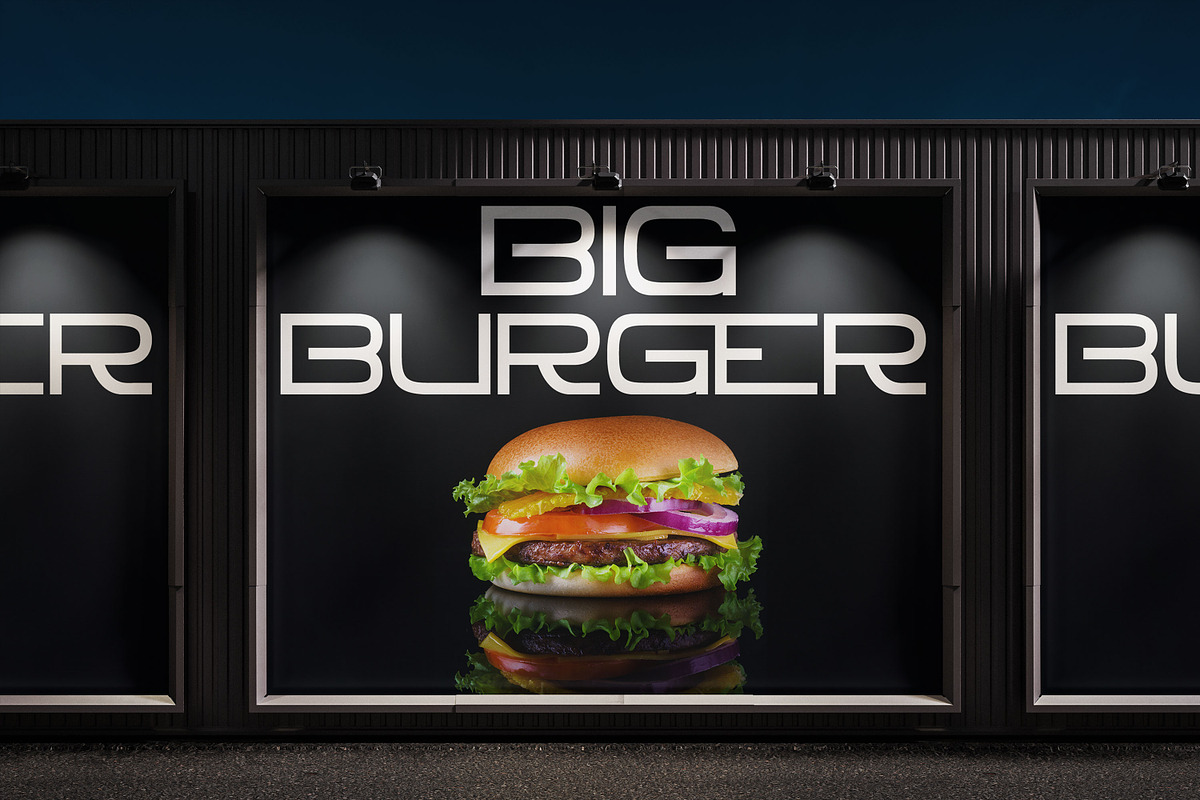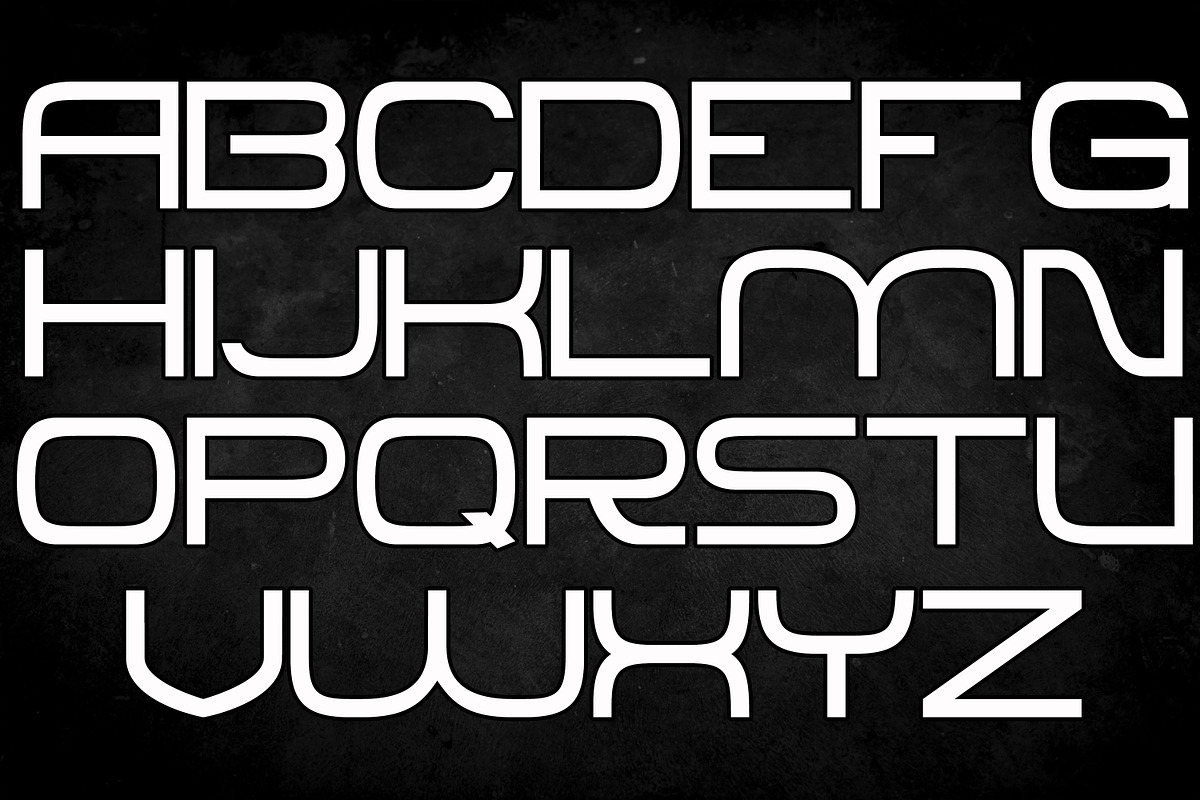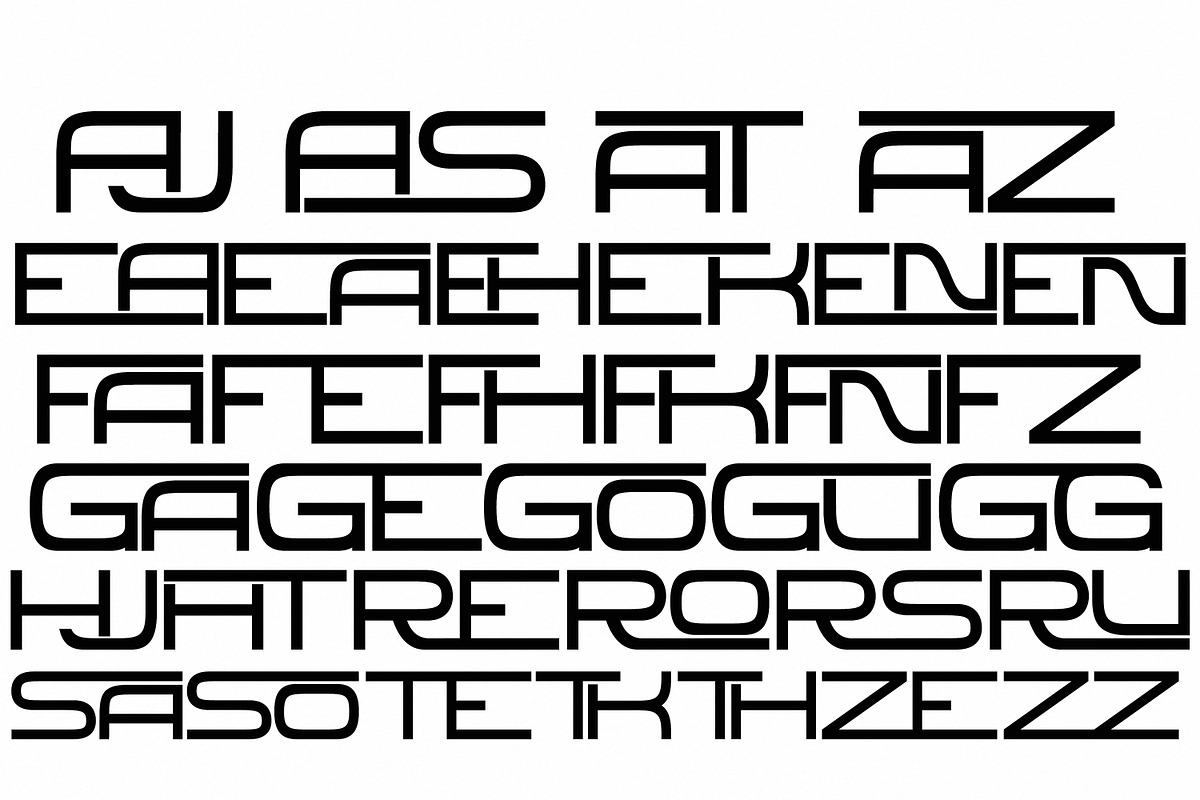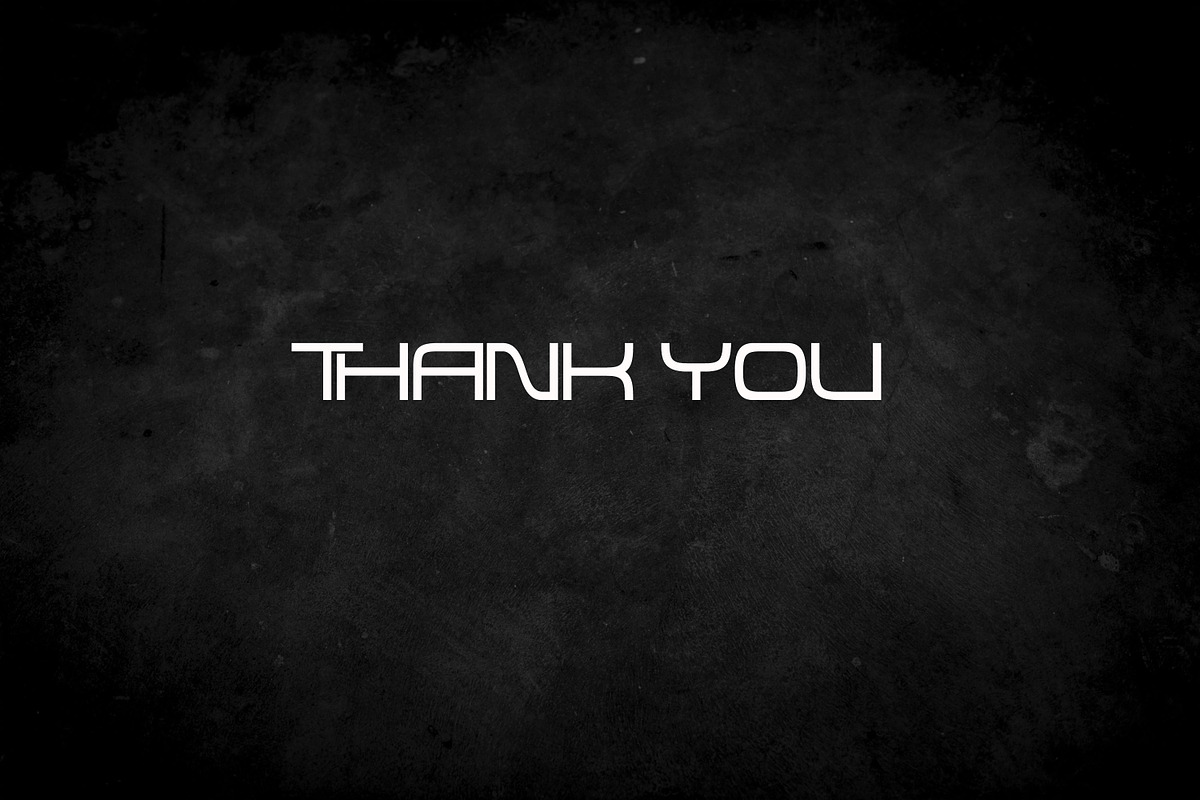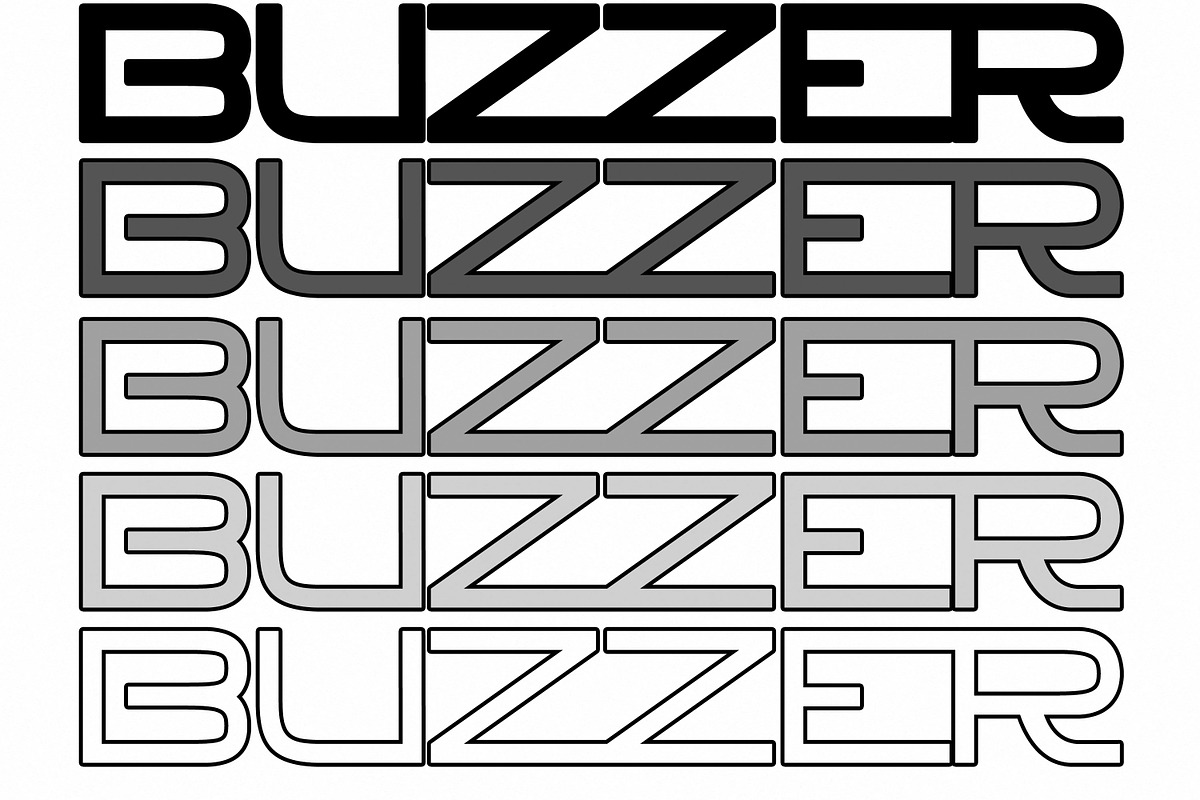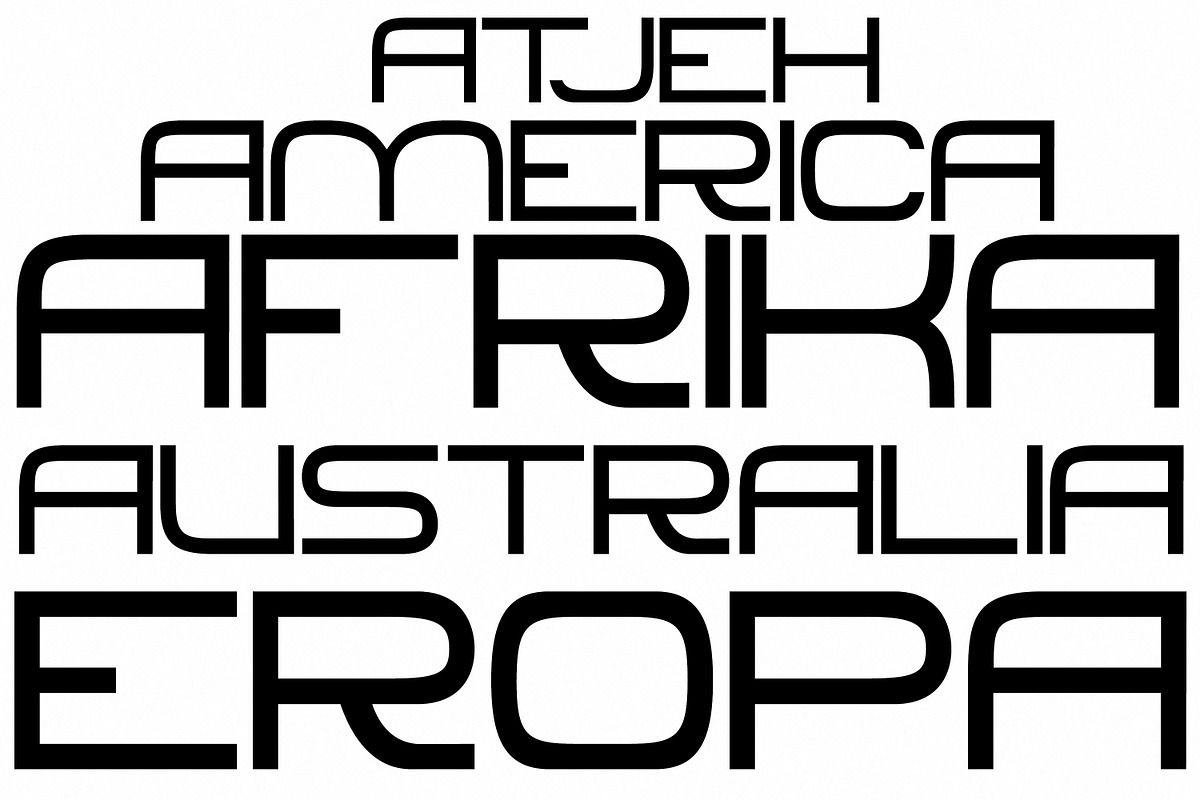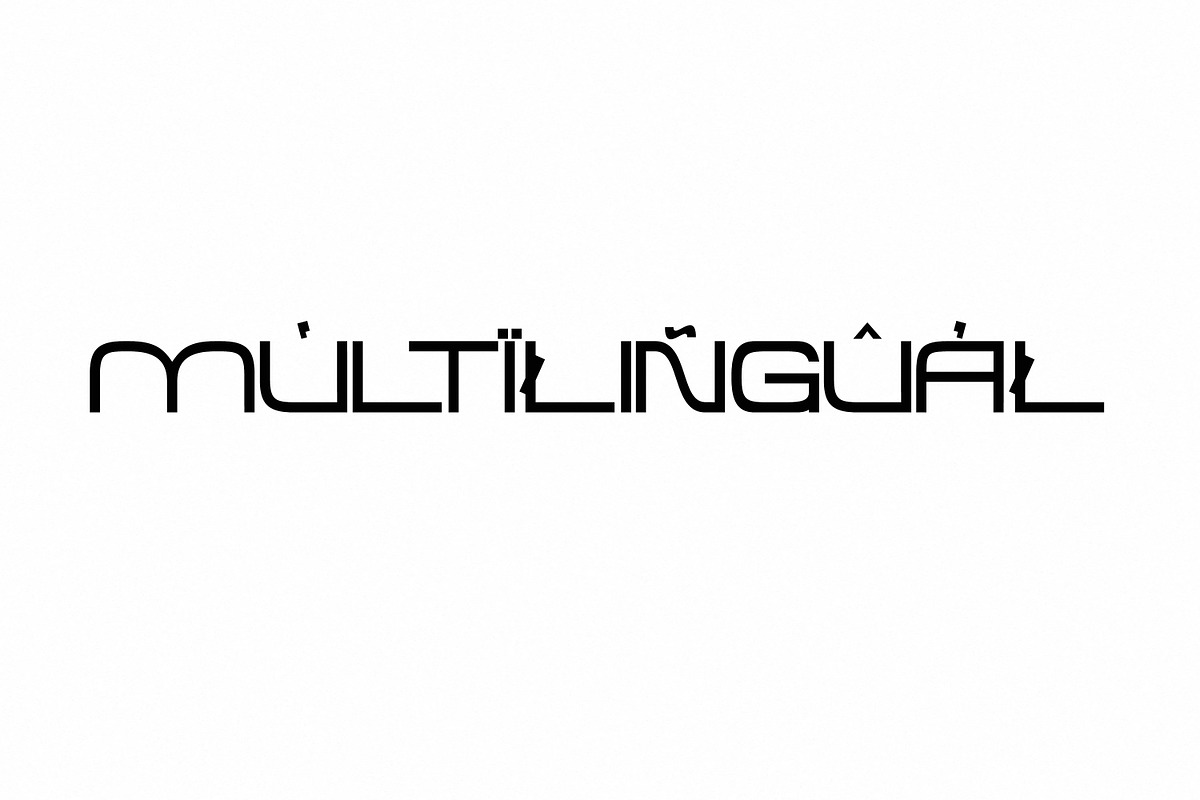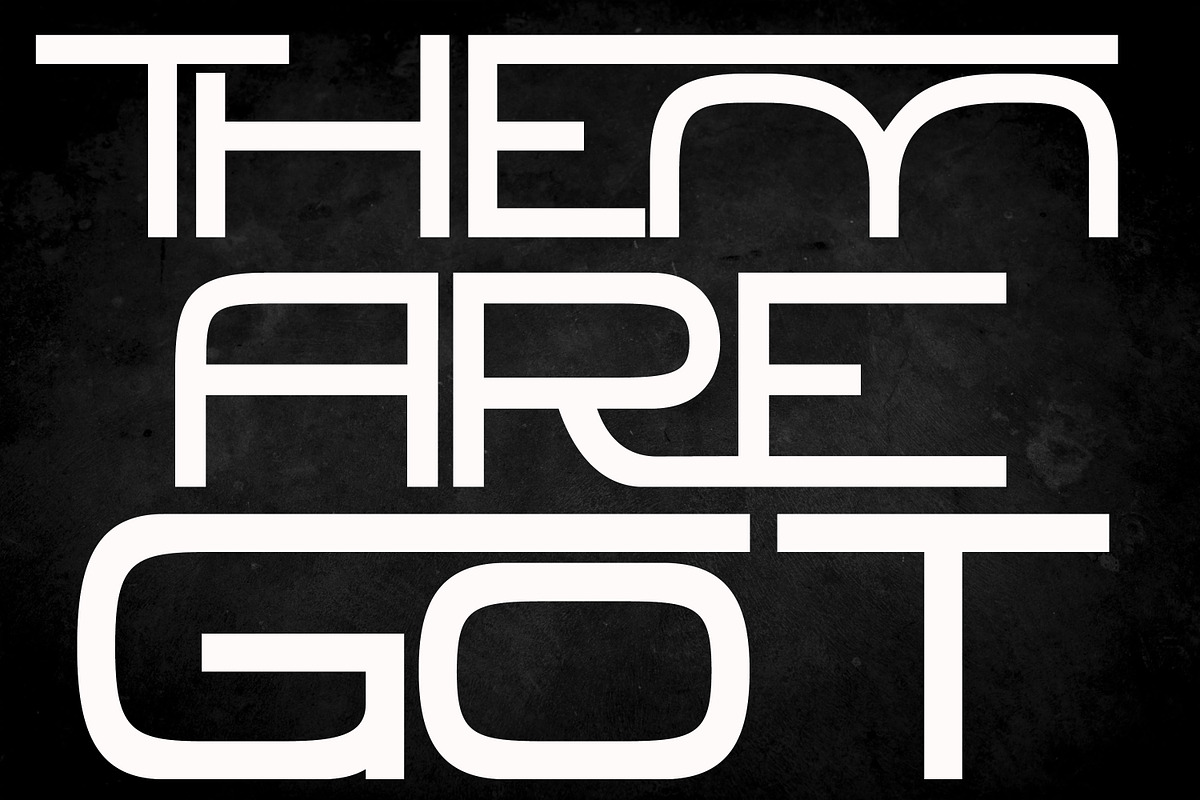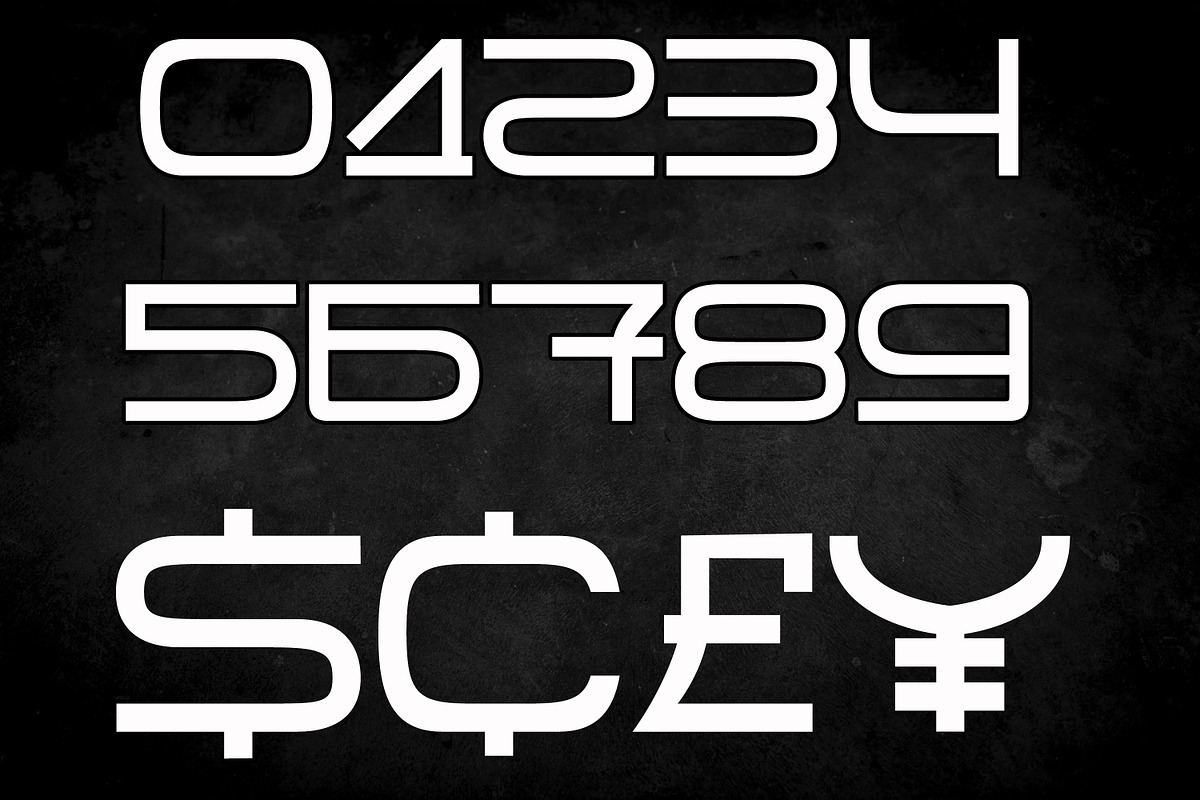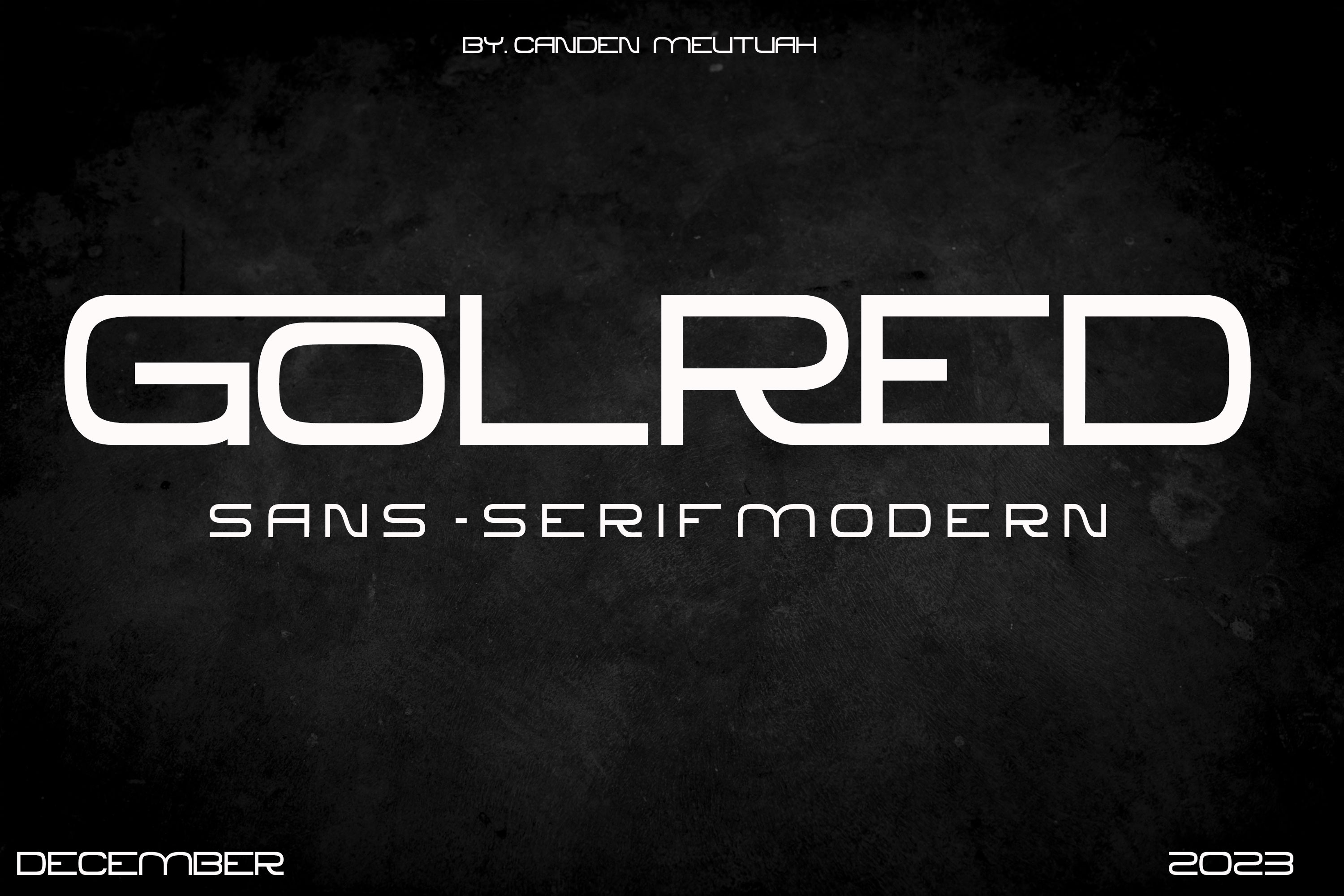
Golred-Sans Serif Font Modern
Introducing Golred is a simple, minimalist and neat sans serif font. It can be easily adapted to a very large range of projects, such as advertising, titles, blogs, logos, branding, invitations, business cards and more! So add it to your creative ideas and watch how it makes it stand out! This font is equipped with a file. OTF, TTF, WOFF and are also used in various languages. you will not be disappointed with the results.